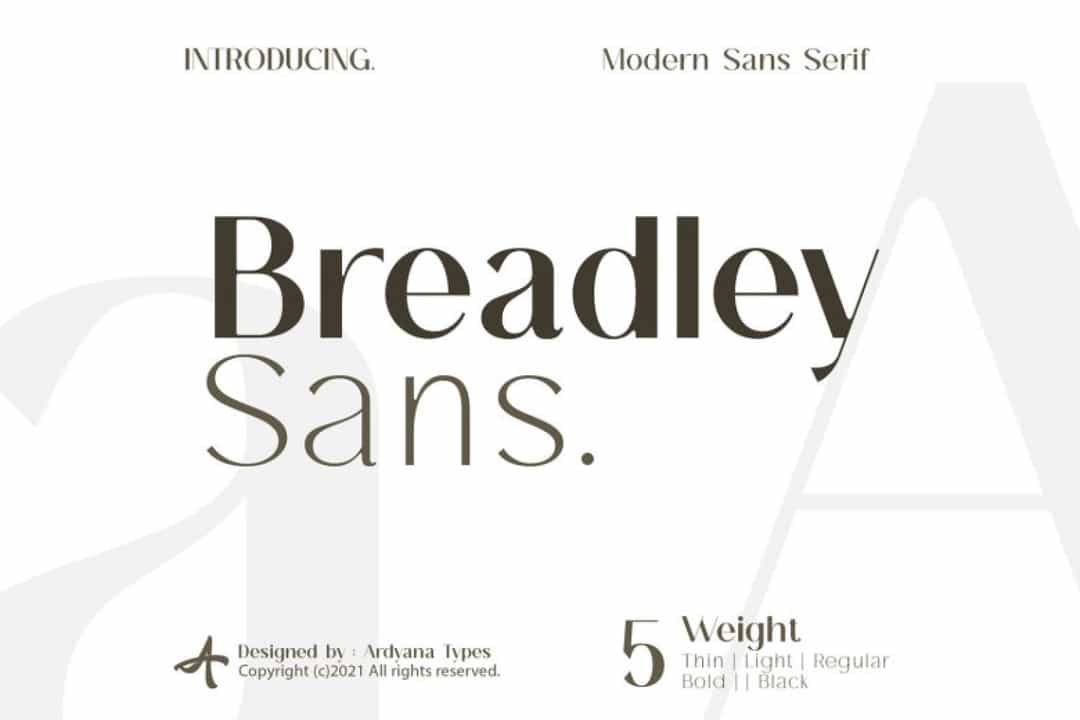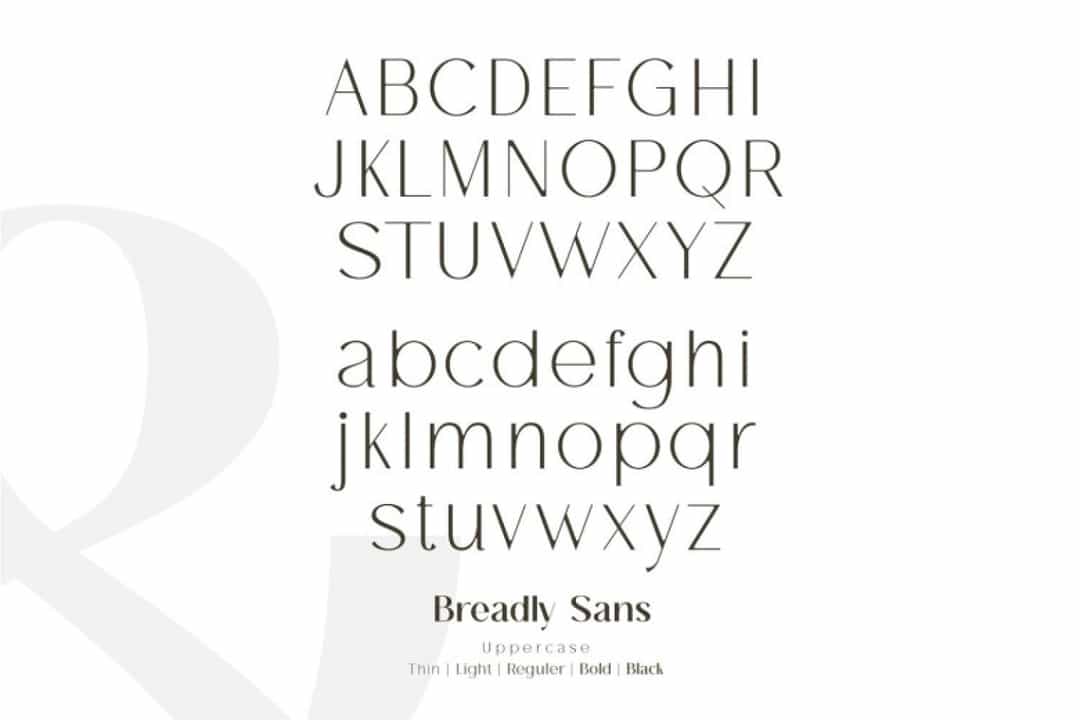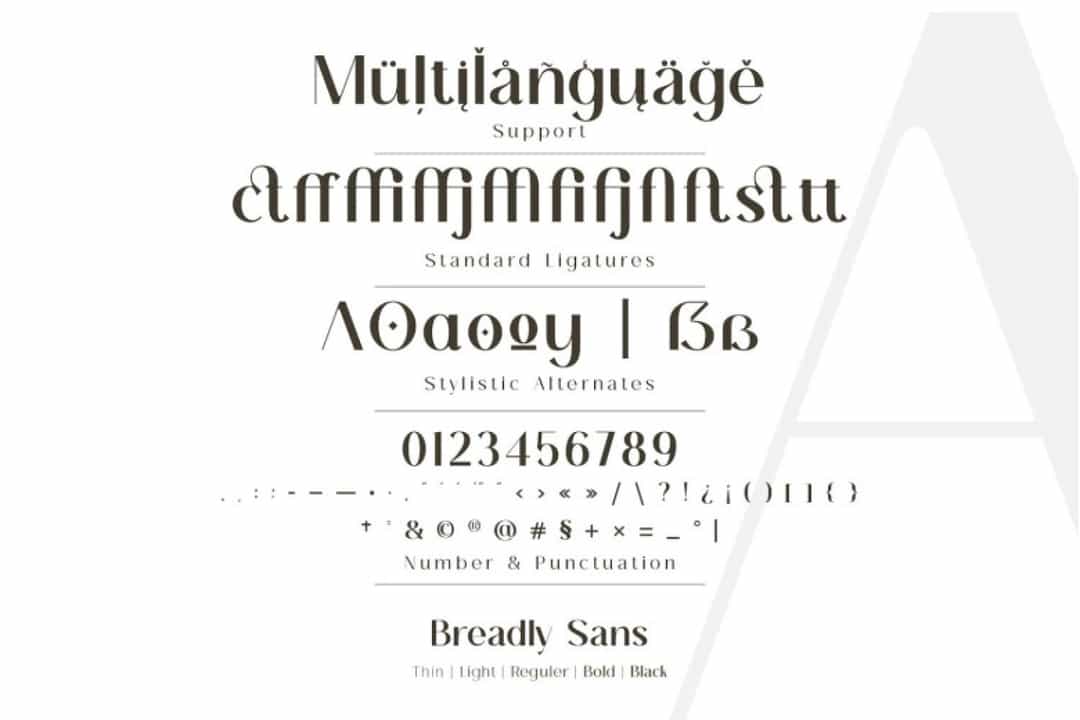
Breadley Sans, a modern elegant tagline sans serif style font available with five levels of thickness (thin to black), will meet all your requirements for web and print media design projects. Perfect as part of modern designs with sans serifs or scripts or used alone as a headline and brand representative to achieve classy styles.